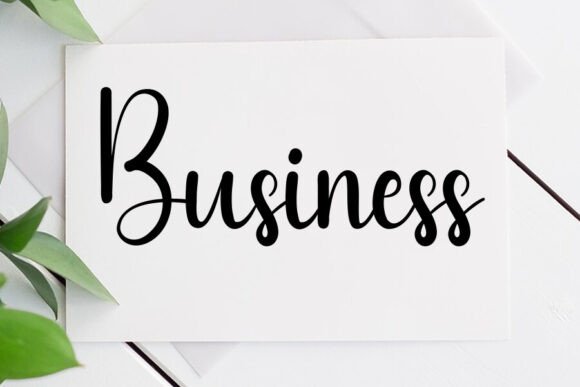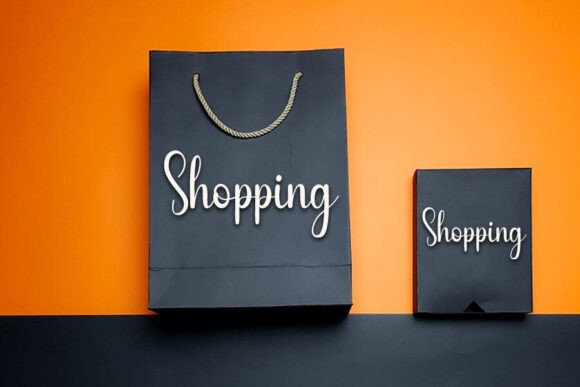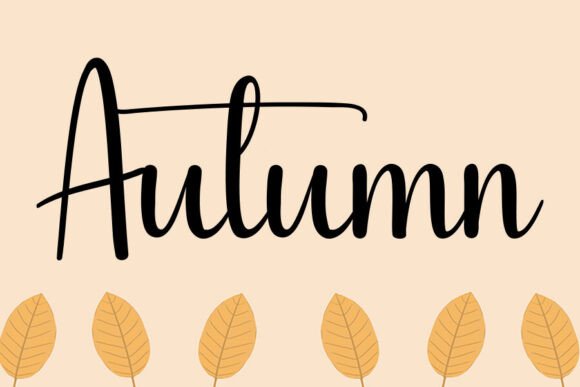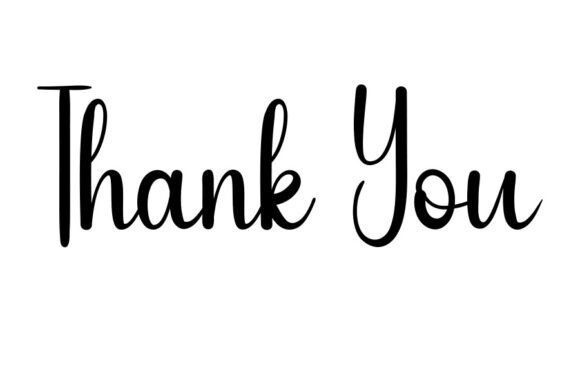
Introducing Brighter Font: The Sweet and Cursive Handwritten Font for Your Design Needs
Are you looking for a font that can add a touch of elegance and whimsy to your designs? Look no further than Brighter Font, a sweet and cursive handwritten font that is perfect for a variety of design projects. With its gentle and flowing curves, Brighter Font is sure to bring a joyful and romantic touch to your work.
What Makes Brighter Font Special?
Brighter Font is a unique and versatile font that can be used for a wide range of design ideas. Its cursive and handwritten style gives it a personal and intimate feel, making it perfect for projects that require a touch of warmth and personality. Whether you’re working on a branding project, a wedding invitation, or a fashion lookbook, Brighter Font is sure to impress.
One of the best things about Brighter Font is its versatility. This font can be used for a variety of design projects, including:
- Branding: Use Brighter Font to create a unique and memorable brand identity that stands out from the crowd.
- Logo Design: Create a beautiful and elegant logo that showcases your brand’s personality.
- Wedding Things: Add a touch of romance and whimsy to your wedding invitations, programs, and other stationery.
- Greeting Cards: Create beautiful and heartfelt greeting cards for any occasion.
- Fashion: Use Brighter Font to create a stunning fashion lookbook or catalog that showcases your designs in style.
- Marketing Promotion: Add a touch of elegance and sophistication to your marketing materials, including brochures, flyers, and posters.
Why Choose Brighter Font?
So why choose Brighter Font for your design projects? Here are just a few reasons:
- Elegant and Casual: Brighter Font is the perfect combination of elegant and casual, making it suitable for a wide range of design projects.
- Unique and Versatile: This font is unique and versatile, making it perfect for a variety of design ideas.
- Easy to Read: Brighter Font is easy to read, even in small sizes, making it perfect for body text and captions.
- High-Quality: Brighter Font is a high-quality font that is designed to deliver exceptional results.
Tips for Using Brighter Font
Here are a few tips for using Brighter Font in your design projects:
- Pair it with a Bold Font: Pair Brighter Font with a bold font to create a striking contrast that adds visual interest to your design.
- Use it for Headings: Use Brighter Font for headings and titles to add a touch of elegance and sophistication to your design.
- Experiment with Colors: Experiment with different colors and textures to add depth and visual interest to your design.
In conclusion, Brighter Font is a sweet and cursive handwritten font that is perfect for a variety of design projects. With its elegant and casual style, this font is sure to add a joyful and romantic touch to your work. Whether you’re a designer, craft, or DIY enthusiast, Brighter Font is a great choice for any project that requires a touch of whimsy and personality.